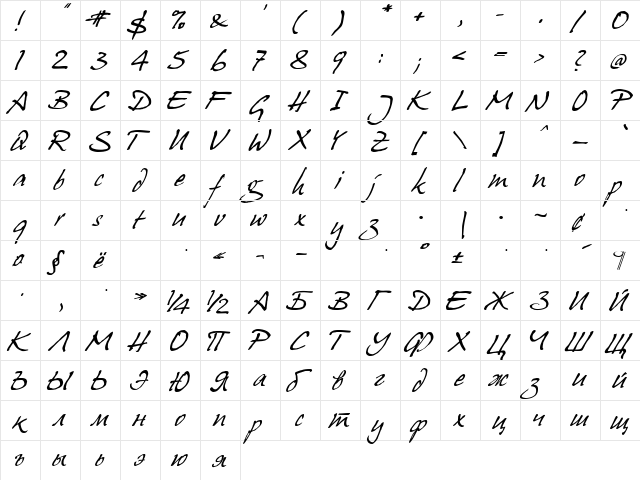
HansHand _cyr
HansHand flows with the natural rhythm of handwritten lettering, making it ideal for designs that call for warmth and personal expression.
Font Pairing: Combine HansHand with a simple geometric sans for maximum contrast — the tension between flowing curves and clean structure is a classic typographic pairing.
Pro Tip: Use HansHand for short runs of text — names, titles, or taglines. Extended body copy in script faces tires the eye quickly.